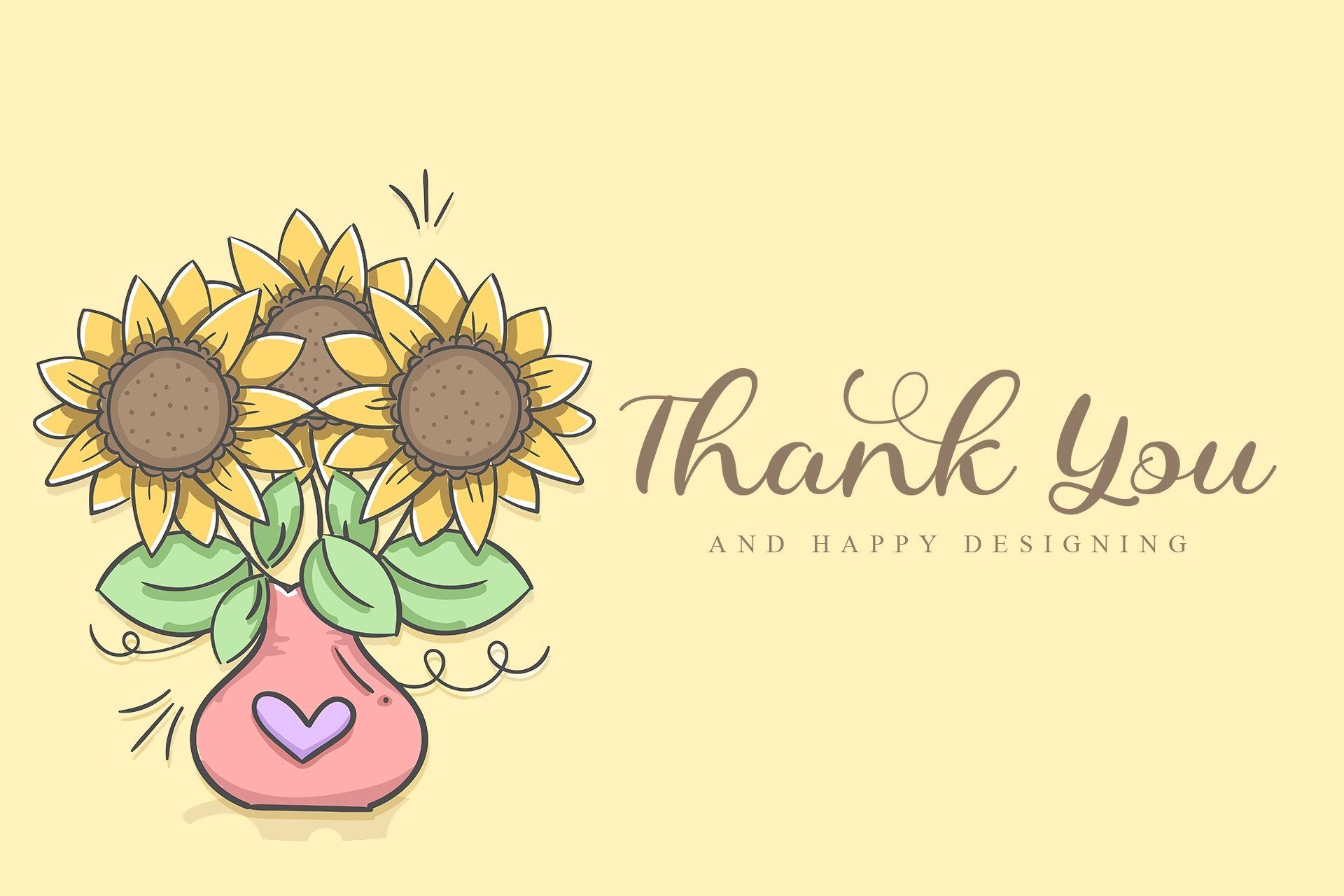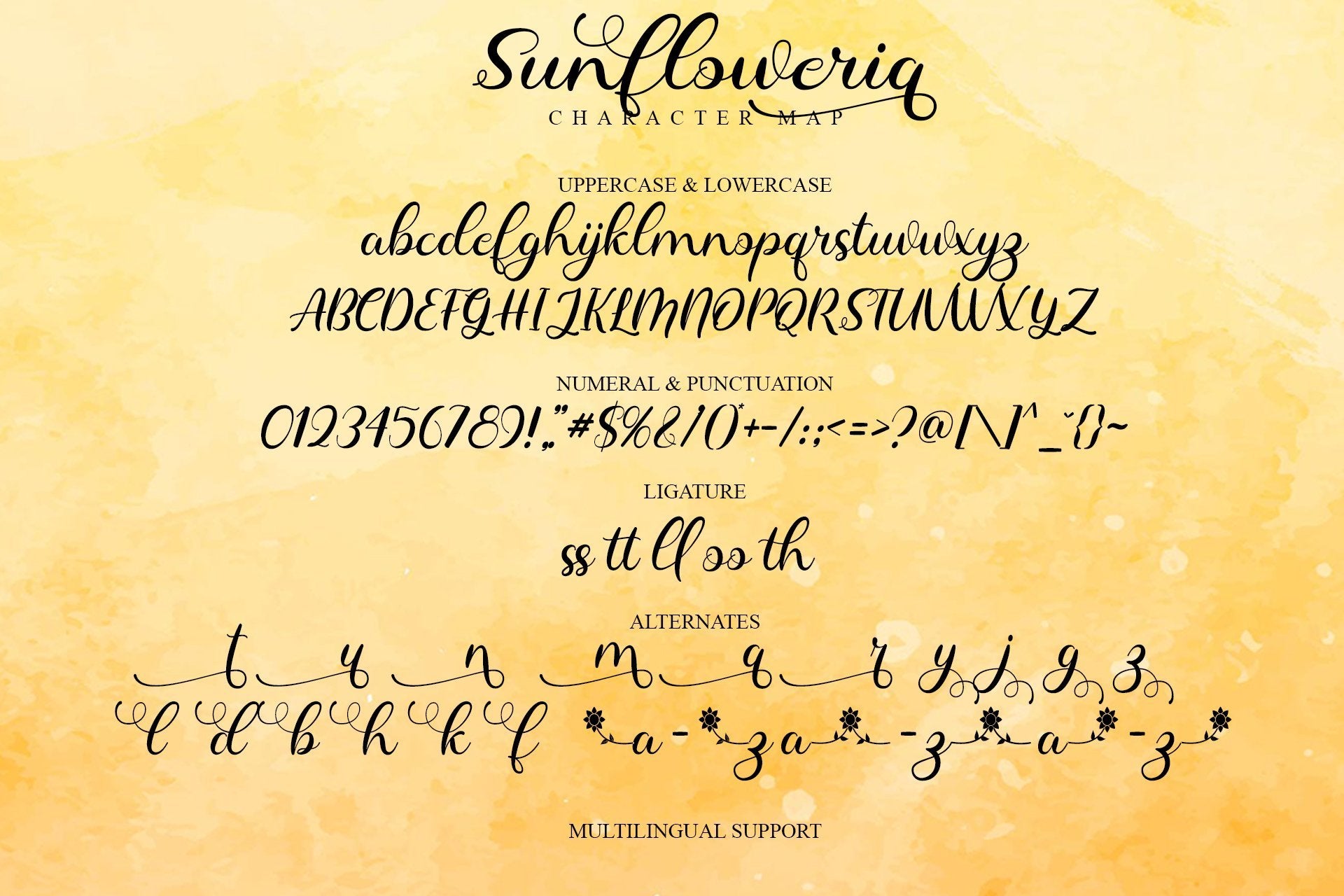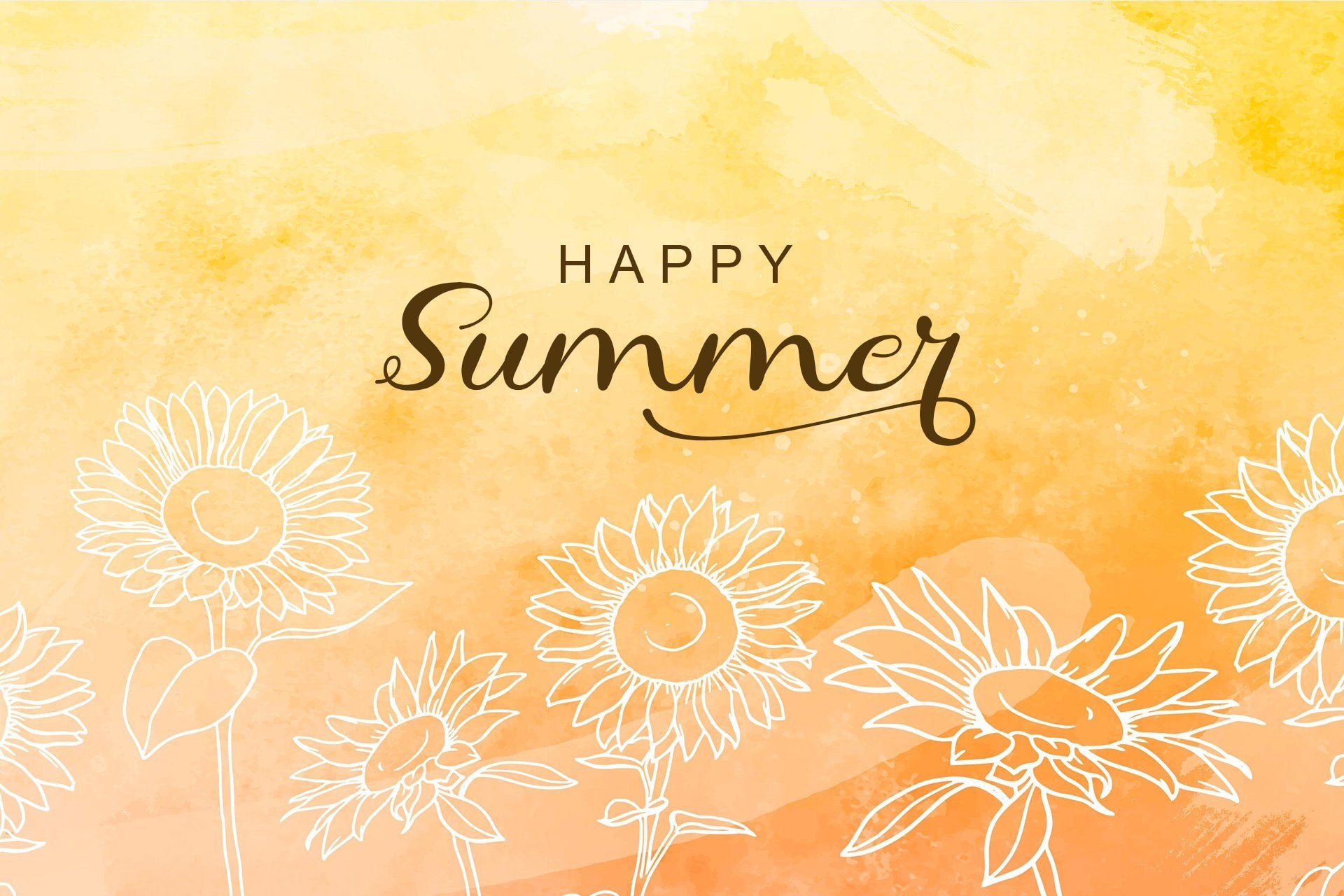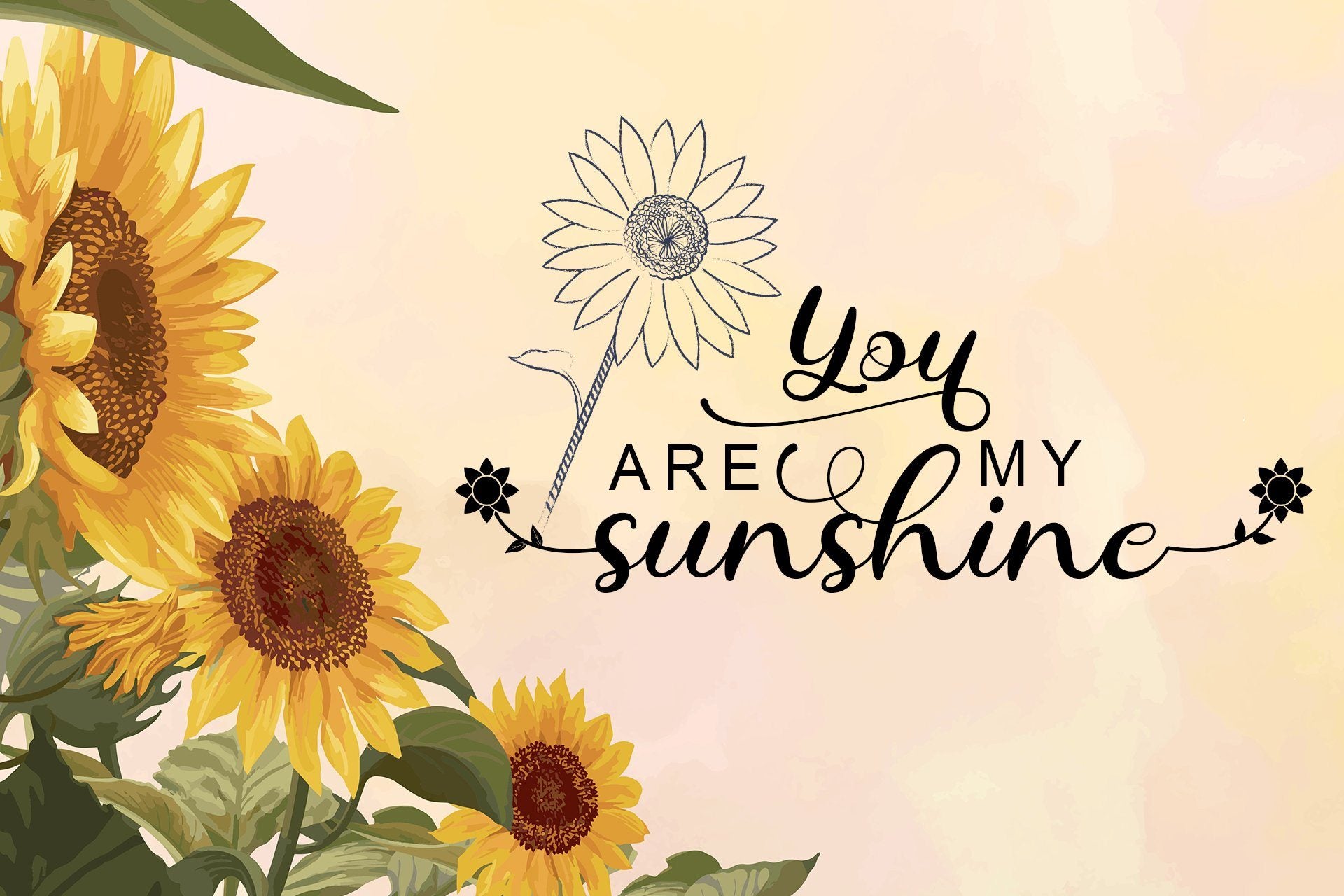
About Sunfloweria
Sunfloweria is a beautiful, elegant and flowing calligraphy font. It has beautiful and well balanced characters and as a result, it matches a wide pool of designs. Add it to your most creative ideas and notice how it makes them come alive! This font is PUA encoded which means you can access all of the glyphs and swashes with ease! It features a varying baseline, smooth lines, gorgeous glyphs and stunning alternates.